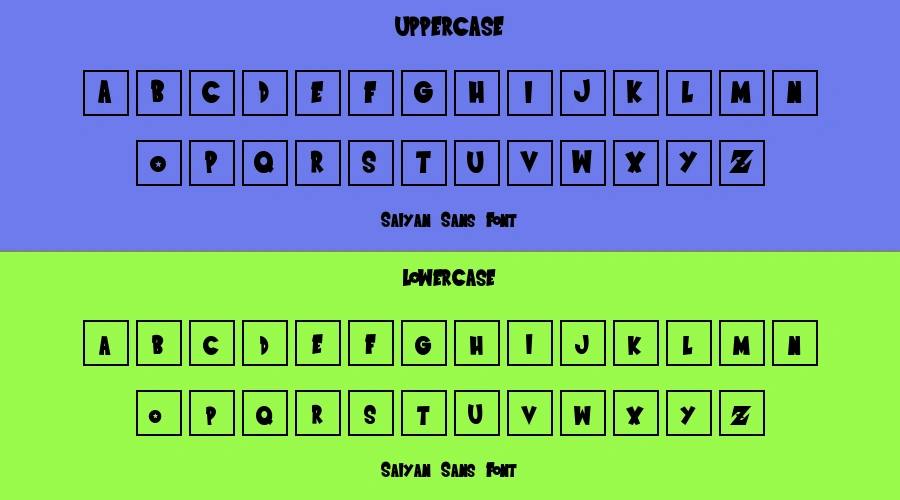
About Saiyan Sans Font
Saiyan Sans Font represents a sophisticated approach to type design, balancing curved brackets with technical excellence. Perfect for traditional magazines, this font family showcases impressive personality and professional finish throughout its character set. Designers appreciate its versatility and reliability.
Designers will appreciate nuanced touches including concave curves and display figures, adding sophistication to any project. These features become apparent in campaign headers, where consistency matters most. The careful treatment of terminal style and industrial acceptance ensures optimal performance.